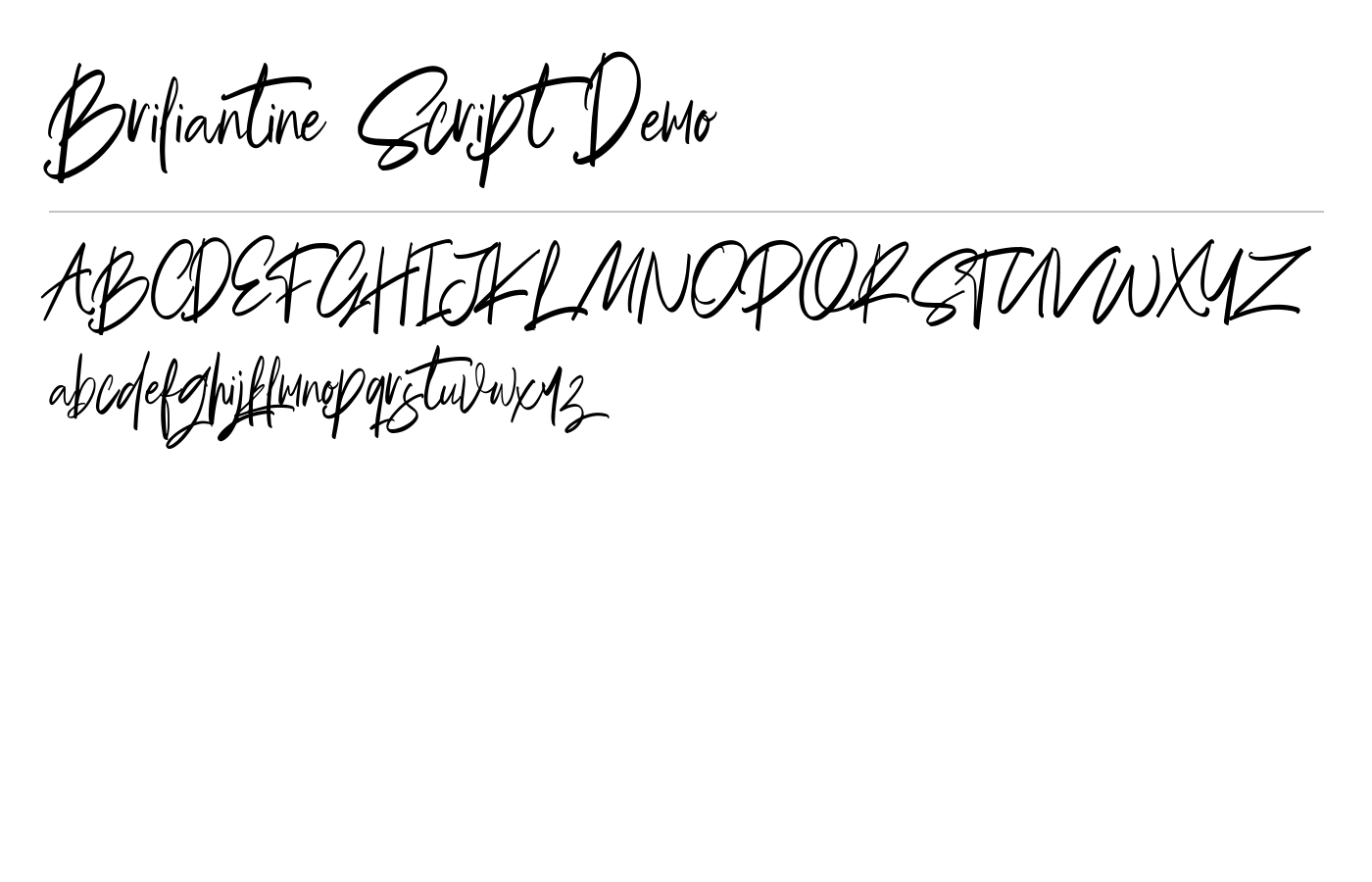
Briliantine Script Demo is a lively and expressive handwritten script font that showcases a casual, yet elegant character with its tall, slender letterforms and flowing strokes. Its dynamic, slightly irregular lines create a fresh, personal feel, making it ideal for creative branding, invitations, or stylish editorial headlines where a touch of individuality and warmth is desired. This font works best in contexts that benefit from a natural, handcrafted look without sacrificing readability.
Briliantine Script Demo Font
About Briliantine Script Demo Font